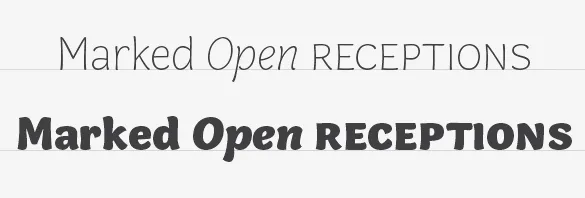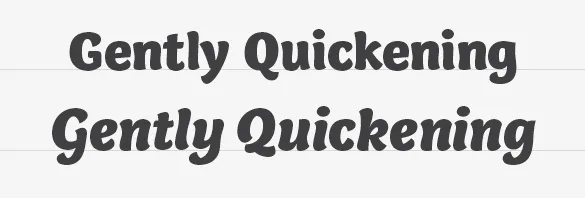
Designing Capucine
Although Capucine defies traditional categorization, it sits in a genre we are drawn to as users of type: a face with distinct personality able to straddle the worlds of both text and display with ease. In this context it should come as no surprise that its designer was born and raised in France, a country whose type history is rich with successful instances of such attempts. From Auriol and Grasset – typefaces that became symbolic of the Art Nouveau style – to the iconic designs of Roger Excoffon in the 1950s and 60s, French type designers have often tried to fulfill the requirements of efficient text setting while retaining a gestural quality. Like many of its French predecessors, Capucine is driven by the eye rather than geometrical dogma, bringing a warmth and liveliness to the page.
When Alice Savoie began designing Capucine in 2006, she set out to create a typeface specifically for magazine and newspaper listings. Fortunately, the demands of that potentially stifling area didn’t get in the way of what would ultimately be an expression of joie de vivre. Capucine is a robust family of ten styles, ranging from Thin to Black, whose flavor mixes the fluidity of writing with the vivacity of a brush script to create this idiosyncratic sans serif.
Capucine typeface specimen..
As a family, the weights and styles were designed to provide typographic contrast and variation. The two extremes – Thin and Black – were conceived as display variants while the mid-weights – Light, Regular and Bold – were designed for text sizes and to add hierarchical differentiation. When you first encounter Capucine, its use as a display face is evident. However, because it is slightly condensed, has a large x-height, small ascenders & descenders and wide counters, it is efficient for body text and remains legible even at small sizes. Additionally, the family features small caps, multiple numeral styles and case-sensitive punctuation for increased usefulness.
Capucine's italics as a unique style.
Adding to the typographic variation of Capucine is the italic. Despite its moderate angle, the pronounced contrast between thicks and thins, the exaggerated curves and a slight condensation of letter width provide the necessary contrast while remaining perfectly in sync with its roman counterpart. Set the italic at larger sizes, however, and it reveals itself as an independent design in its own right.
And for those who wonder, the name Capucine (pronounced KA-poo-seen) is not a reference to the delicious Italian mixture of coffee and foamed milk or even the French preference for strong coffees. Rather, the name is the French word for the nasturtium flower – deemed appropriate here because of the organic nature of the Capucine family.